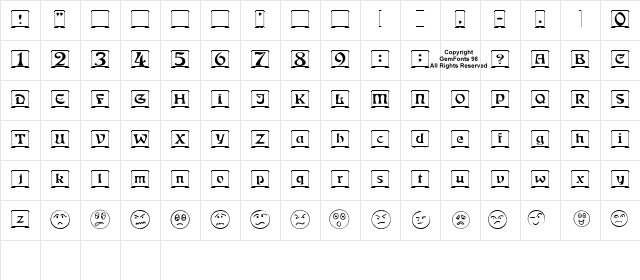
Fanfold Regular Free Font
Fanfold Regular
Design Context for Fanfold
Fanfold is a composed and adaptable typeface that performs quietly and consistently across a wide range of design contexts.